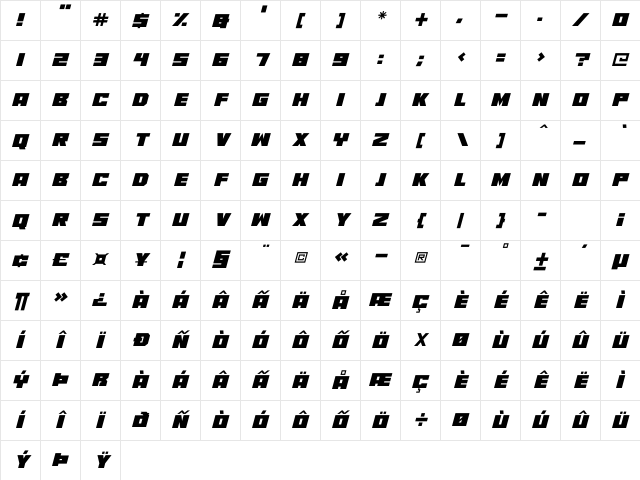
Complete Amazing Views Italic glyph index. Displaying only characters natively supported by Amazing Views Italic font.
Amazing Views is a composed and adaptable typeface that performs quietly and consistently across a wide range of design contexts. The slanted form adds forward momentum and visual energy.
Pro Tip: Use Amazing Views for emphasis, pull quotes, and subheadings where its slanted energy can add rhythm to the layout.